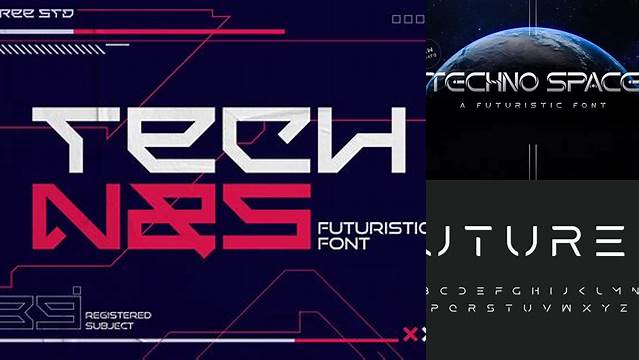
Techno Fonts: Free Downloads For Your Futuristic Designs
Hey everyone! Are you looking to give your designs a futuristic edge? Well, you're in the right place! Today, we're diving deep into the world of techno fonts and how you can download them for free to make your projects stand out. Let's get started!
1. What Exactly Are Techno Fonts?
So, what exactly are techno fonts? These fonts are all about futuristic, technological, and modern aesthetics. They often feature sharp angles, geometric shapes, and a generally sleek appearance. Think of the fonts you see in sci-fi movies or on high-tech gadgets – that's the vibe we're going for! These fonts are perfect for anything that needs a modern or futuristic touch, and they can really make your designs pop. Whether you're working on a website, a poster, or even a video game, a good techno font can elevate your work and give it that cutting-edge feel that everyone loves. The best part is that many talented designers and foundries offer these fonts for free, allowing you to experiment and find the perfect fit for your project without breaking the bank. When choosing a techno font, consider the overall tone of your design. Do you want something aggressive and bold, or something more subtle and refined? The right techno font will complement your design and enhance its impact. Don't be afraid to try out different options and see what works best for you. With so many free options available, the possibilities are endless! So go ahead, guys, explore the world of techno fonts and find the perfect font to bring your futuristic visions to life. You'll be amazed at the difference a well-chosen techno font can make.
2. Why Use Techno Fonts in Your Designs?
Using techno fonts in your designs can add a unique and modern flair that sets your work apart. These fonts evoke a sense of innovation, technology, and the future, making them ideal for projects that aim to convey a cutting-edge or forward-thinking message. Whether you're designing a website for a tech startup, creating marketing materials for a new gadget, or working on a sci-fi themed project, techno fonts can help you capture the right mood and aesthetic. They can make your designs look more professional, sleek, and visually appealing. The strong lines and geometric shapes often found in techno fonts can also add a sense of structure and clarity to your designs, making them easier to read and understand. Moreover, using techno fonts can help you create a consistent brand identity across all your platforms. By incorporating a techno font into your logo, website, and marketing materials, you can create a cohesive and recognizable brand image that resonates with your target audience. This can be especially beneficial for businesses in the technology, gaming, and entertainment industries. When choosing a techno font, it's important to consider the overall design and message you want to convey. Some techno fonts are bold and assertive, while others are more subtle and refined. Select a font that complements your design and enhances its impact. Also, make sure the font is legible and easy to read, especially in smaller sizes. Don't be afraid to experiment with different techno fonts and see what works best for your project. With a little creativity and the right font, you can create stunning designs that capture the essence of the future.
3. Finding Free Techno Fonts: Where to Look
Finding free techno fonts is easier than you might think! There are tons of great resources online where you can discover a wide variety of techno fonts without spending a dime. One of the best places to start is Google Fonts. Google Fonts offers a curated selection of high-quality fonts that are free for commercial use. You can easily browse and filter fonts by style, weight, and other criteria, making it easy to find the perfect techno font for your project. Another great resource is DaFont. DaFont has a massive collection of fonts, including many techno fonts, that are free for personal use. While some fonts may require a license for commercial use, there are still plenty of options available for free. Just be sure to check the license terms before using a font in a commercial project. FontSpace is another popular website for finding free fonts. It offers a user-friendly interface and a wide selection of fonts, including many techno fonts. You can easily search for fonts by keyword or browse through different categories to find what you're looking for. Behance and Dribbble are also great platforms for discovering free techno fonts. Many designers share their font creations on these platforms, often offering them for free as a way to showcase their work. Keep an eye out for fonts that catch your eye and be sure to follow the designers to stay updated on their latest creations. Remember to always check the license terms before using a techno font in your project. While many fonts are free for personal use, you may need to purchase a license for commercial use. By using these resources, you'll be able to find a treasure trove of free techno fonts to enhance your designs.
4. Top Websites Offering Techno Fonts
When it comes to finding top-notch techno fonts, several websites stand out from the crowd. These platforms offer a wide selection of high-quality fonts that can elevate your designs and give them a futuristic edge. Let's take a look at some of the best websites for downloading techno fonts. First up, we have MyFonts. MyFonts is a well-known font marketplace that offers a vast collection of fonts from various designers and foundries. While not all fonts on MyFonts are free, they have a great selection of techno fonts available for purchase. The quality of the fonts is generally very high, and you can find some truly unique and innovative designs. Another great website is FontShop. FontShop is similar to MyFonts in that it offers a wide variety of fonts from different sources. They also have a good selection of techno fonts, ranging from classic designs to more modern and experimental styles. You can browse their collection and find the perfect font to suit your needs. Creative Market is another popular platform for designers, offering a wide range of design assets, including fonts. They often have bundles and deals on techno fonts, making it a great place to find affordable options. The quality of the fonts on Creative Market is generally very good, and you can find some unique and creative designs. Adobe Fonts is a subscription-based service that gives you access to a vast library of fonts. If you're already an Adobe Creative Cloud subscriber, you'll have access to Adobe Fonts as part of your subscription. They have a growing collection of techno fonts that you can use in your projects. These websites offer a diverse range of techno fonts, ensuring that you can find the perfect font to match your design aesthetic.
7. Using Techno Fonts in Graphic Design
Using techno fonts in graphic design can add a distinctive, futuristic flair to your projects. These fonts are particularly well-suited for designs that aim to convey innovation, technology, or a modern aesthetic. Whether you're creating a logo, designing a website, or putting together a marketing campaign, techno fonts can help you achieve the desired look and feel. When using techno fonts in graphic design, it's important to consider the overall design and message you want to convey. Some techno fonts are bold and assertive, while others are more subtle and refined. Choose a font that complements your design and enhances its impact. For example, if you're designing a logo for a tech startup, you might want to use a bold, geometric techno font to convey a sense of innovation and cutting-edge technology. On the other hand, if you're designing a website for a luxury brand, you might want to use a more refined and elegant techno font to convey a sense of sophistication and exclusivity. It's also important to consider the legibility of the font. While techno fonts can be visually striking, some may be difficult to read, especially in smaller sizes. Make sure the font is legible and easy to read, especially if you're using it for body text. Experiment with different font sizes, weights, and styles to find the perfect balance between aesthetics and legibility. Don't be afraid to mix and match techno fonts with other font styles to create a unique and visually appealing design. However, be careful not to use too many different fonts, as this can make your design look cluttered and disorganized. By using techno fonts effectively in your graphic design, you can create stunning visuals that capture the essence of the future.
8. Pairing Techno Fonts with Other Fonts
Pairing techno fonts with other fonts can be a bit tricky, but when done right, it can create a visually appealing and balanced design. The key is to find fonts that complement the techno font and don't clash with its unique characteristics. Here are some tips for pairing techno fonts with other fonts: First, consider the overall tone and style of your design. Are you going for a futuristic, high-tech look, or something more subtle and refined? Choose fonts that match the overall tone of your design. For example, if you're using a bold, geometric techno font, you might want to pair it with a clean and modern sans-serif font. This will create a sense of contrast and balance, while still maintaining a cohesive look. On the other hand, if you're using a more subtle and elegant techno font, you might want to pair it with a classic serif font. This will add a touch of sophistication and elegance to your design. Second, pay attention to the font's hierarchy. Use different fonts for headings, subheadings, and body text to create a clear visual hierarchy. For example, you might use a techno font for headings and a simpler sans-serif font for body text. This will make your design easier to read and understand. Third, don't be afraid to experiment. Try out different font combinations and see what works best for your design. There are no hard and fast rules when it comes to font pairing, so feel free to get creative and explore different possibilities. Fourth, use online resources. There are many websites and tools that can help you find font pairings that work well together. These resources can save you time and effort and help you create a professional-looking design. By following these tips, you can pair techno fonts with other fonts effectively and create stunning designs.
9. Free Techno Fonts for Logos
When designing a logo, the font you choose can make a significant impact on the overall impression of your brand. Techno fonts can be an excellent choice for logos that aim to convey innovation, technology, or a modern aesthetic. They can help your logo stand out and create a memorable visual identity. There are many free techno fonts available that are suitable for logos. These fonts range from bold and geometric to more subtle and refined, allowing you to find the perfect font to match your brand's personality. When choosing a techno font for your logo, it's important to consider the following factors: First, think about your brand's message and target audience. What do you want your logo to communicate? Who are you trying to reach? Choose a font that aligns with your brand's message and resonates with your target audience. Second, consider the legibility of the font. Your logo should be easy to read and recognize, even in small sizes. Choose a techno font that is legible and clear, especially if your logo will be used on business cards, websites, and other small formats. Third, think about the versatility of the font. Your logo should look good in a variety of contexts, from print materials to digital media. Choose a techno font that is versatile and can be used in different sizes and formats without losing its impact. Fourth, experiment with different font combinations. Try pairing a techno font with other font styles to create a unique and visually appealing logo. However, be careful not to use too many different fonts, as this can make your logo look cluttered and disorganized. By considering these factors and exploring the available options, you can find the perfect free techno font for your logo and create a strong and memorable brand identity.
10. Best Techno Fonts for Websites
Choosing the right font for your website is crucial for creating a visually appealing and user-friendly experience. Techno fonts can be a great option for websites that want to convey a sense of modernity, innovation, or technology. They can add a unique and distinctive touch to your website's design. Here are some of the best techno fonts for websites: First, consider the overall style and tone of your website. Is it a futuristic, high-tech website, or something more subtle and refined? Choose a font that matches the overall style and tone of your website. For example, if you have a website for a tech startup, you might want to use a bold, geometric techno font to convey a sense of innovation and cutting-edge technology. On the other hand, if you have a website for a design agency, you might want to use a more elegant and refined techno font to convey a sense of sophistication and creativity. Second, pay attention to the legibility of the font. Your website's content should be easy to read and understand, so choose a techno font that is legible and clear, especially for body text. Avoid fonts that are too decorative or stylized, as they can be difficult to read on screen. Third, consider the font's performance. Websites need to load quickly, so choose a techno font that is optimized for web use. Some fonts can slow down your website's loading time, which can negatively impact the user experience. Fourth, experiment with different font combinations. Try pairing a techno font with other font styles to create a visually appealing and balanced design. However, be careful not to use too many different fonts, as this can make your website look cluttered and disorganized. Some popular techno fonts for websites include [List some font names here]. By considering these factors and exploring the available options, you can find the perfect techno font for your website and create a visually stunning and user-friendly online presence.